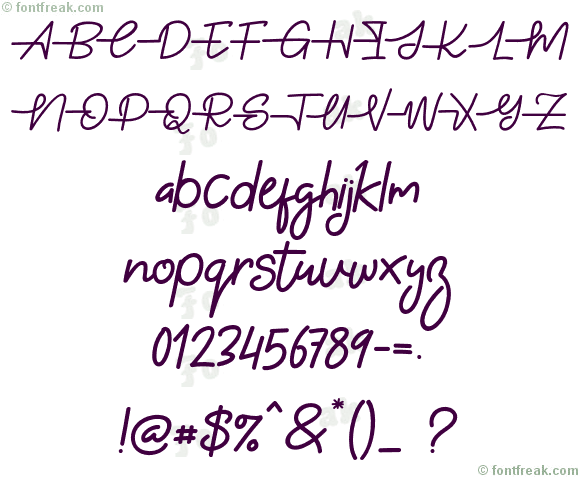
Gabuek Script
About Gabuek Script
Gabuek Script, designed by Syaf Rizal, is a captivating handwritten font that brings a personal touch to any project. This free-to-download typeface falls within the script category, featuring fluid, flowing lines that mimic natural handwriting. Its unique visual characteristics include a medium stroke weight with a subtle contrast, allowing for easy readability while maintaining an elegant flair. The letters are gracefully connected, offering a cohesive look that is both inviting and warm. This makes it perfect for various applications where a personal touch is desired.
Ideal use cases for Gabuek Script include wedding invitations, where its romantic style can enhance the overall aesthetic, and greeting cards, adding a heartfelt message. It also shines in restaurant menus, where its approachable design can make dishes feel more inviting, and in branding materials for small businesses seeking to convey creativity and authenticity. Content creators will find it an excellent choice for blog headings and social media graphics, where a casual yet stylish font can engage audiences effectively.
The target audience for Gabuek Script includes graphic designers looking for unique typefaces to elevate their projects, small business owners wanting to establish a memorable brand identity, and content creators in search of an engaging font that resonates with their audience.
What truly sets Gabuek Script apart is its versatility and charm, seamlessly blending elegance with a personal touch. Whether you’re crafting an invitation, designing promotional materials, or enhancing digital content, this font can elevate your work. For those interested in incorporating this unique typeface into their designs, the Gabuek Script font free download is an opportunity to bring creativity and warmth to any project.